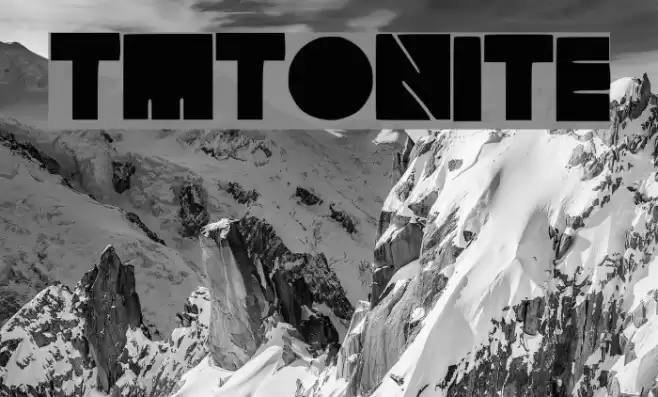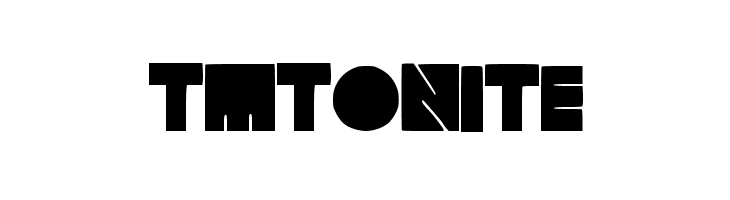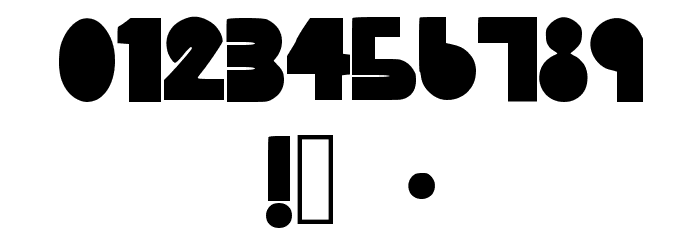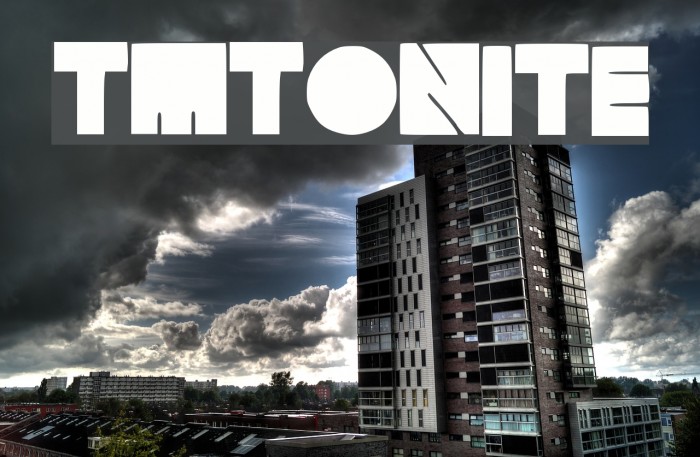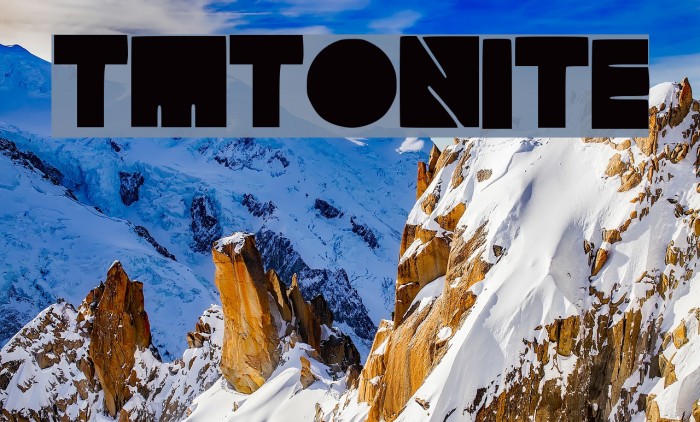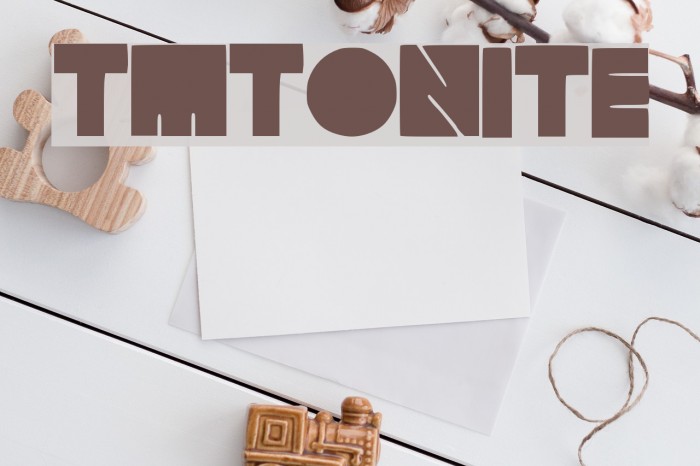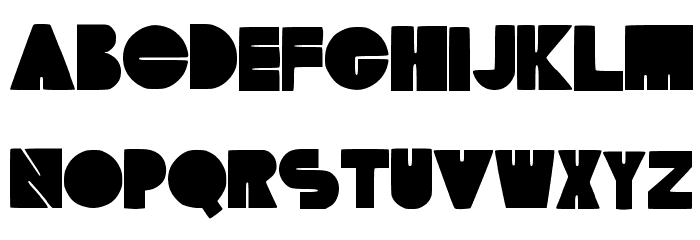
TMTonite Font
TMTonite Description
This font features a bold, geometric design with a strong emphasis on angular shapes and solid forms. The characters are constructed with a combination of straight lines and curves, creating a dynamic and impactful appearance. The uppercase letters are particularly striking, with a blocky and robust style that commands attention. The numbers and special characters maintain the same bold aesthetic, ensuring consistency across all elements. This font's unique style makes it ideal for projects that require a strong visual presence.
A bold, geometric font with angular shapes and solid forms from Uncategorized fonts.
- Proposed Projects: Ideal for posters, logos, branding, and headlines that need a strong visual impact.